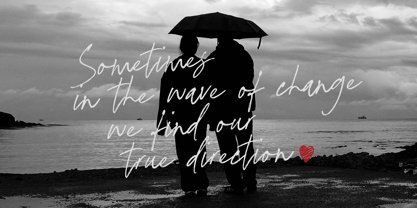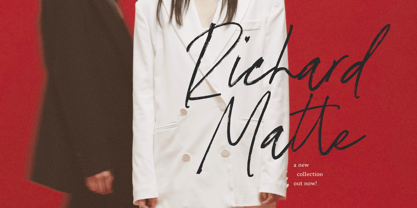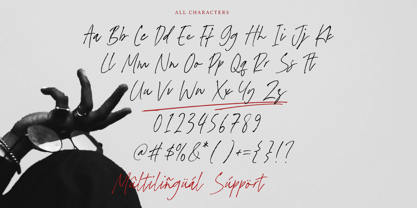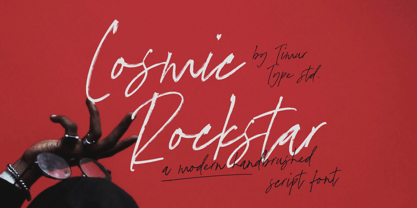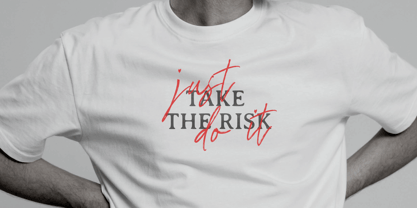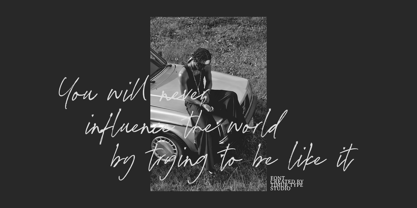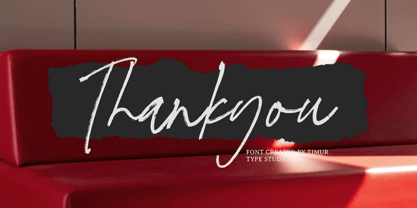
Cosmic Rockstar
Die Schriftfamilie Cosmic Rockstar wurde von Ibnu Nur Rahman entworfen und von Timurtype veröffentlicht. Cosmic Rockstar enthält 1 Stile. Mehr über diese Familie
Introduced by Timurtype Studio! Cosmic Rockstar is a Modern Handbrushed Script Font This font is a modern handbrushed script font with bold, expressive strokes that blend energetic, casual style with a touch of cosmic flair. Its dynamic letterforms evoke a spirited, artistic vibe perfect for branding, posters, logos, and creative projects with an edgy and contemporary feel. Cosmic Rockstar Font also supports multilingualism Enhance your designs with our original fonts, feel free to comment or provide feedback, Enjoy the fonts 😊 Thank You
Designer: Ibnu Nur Rahman
Foundry: Timurtype